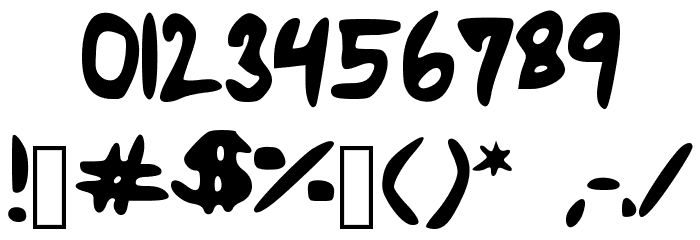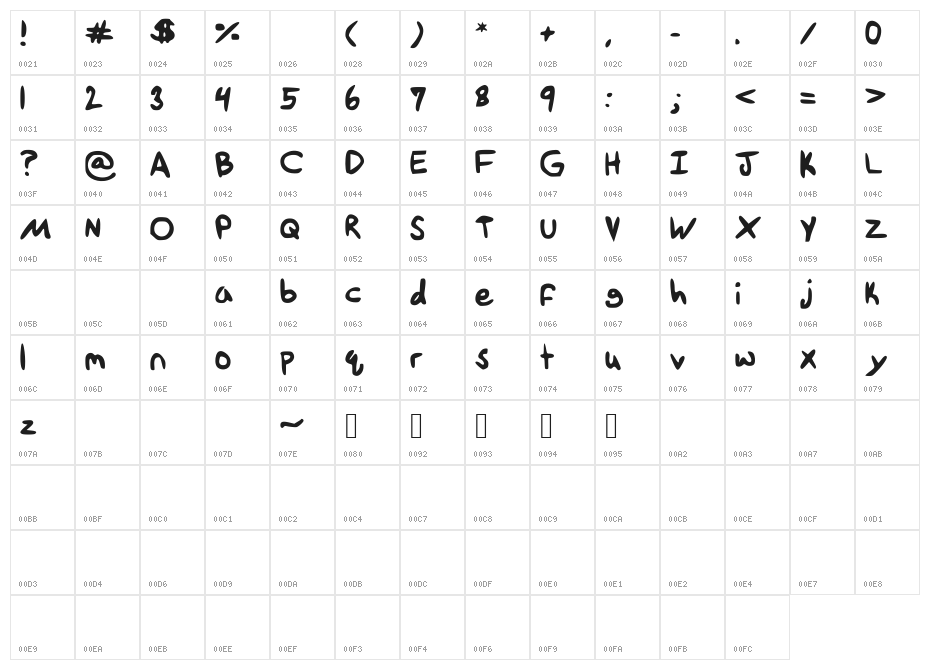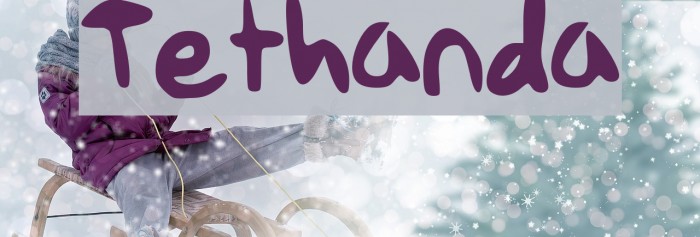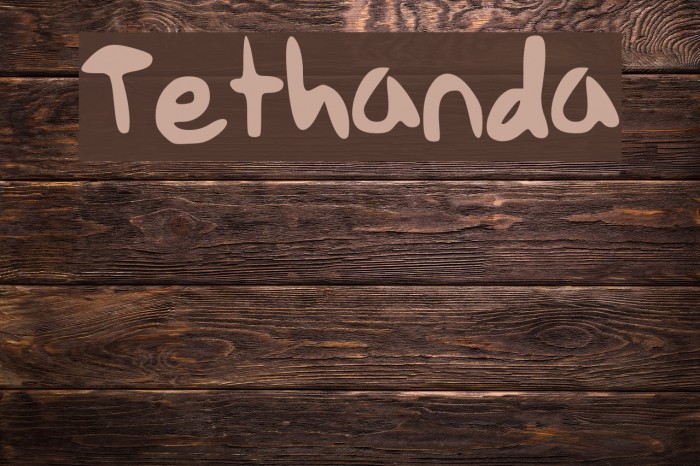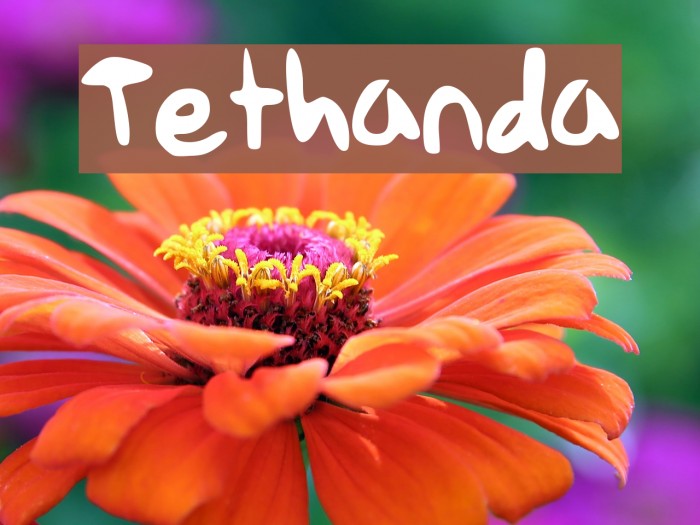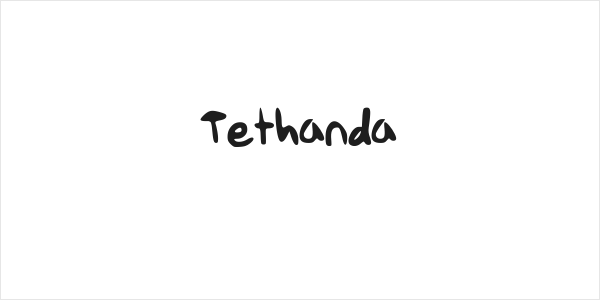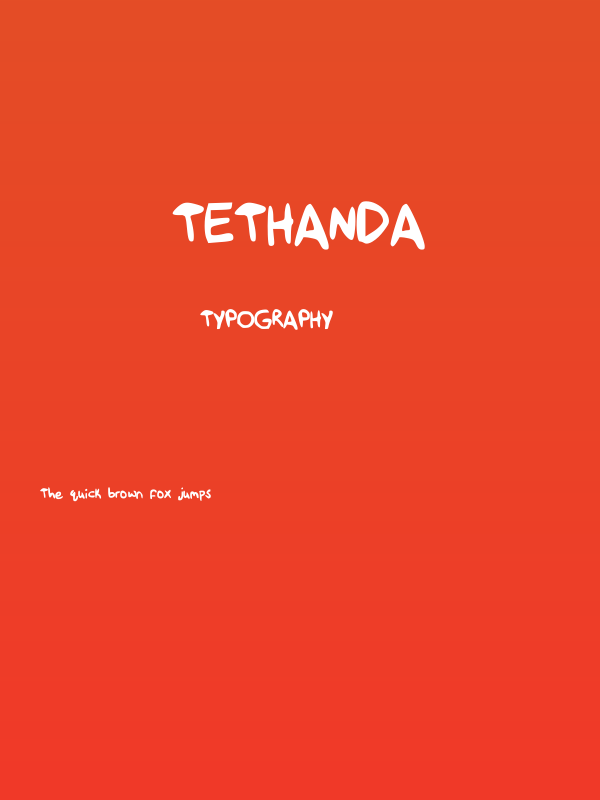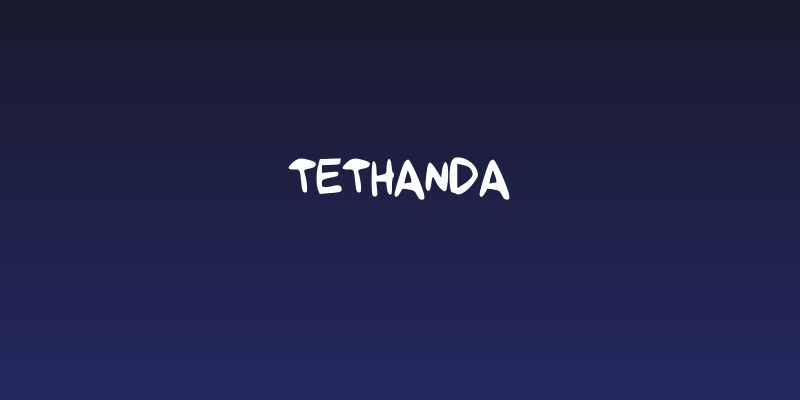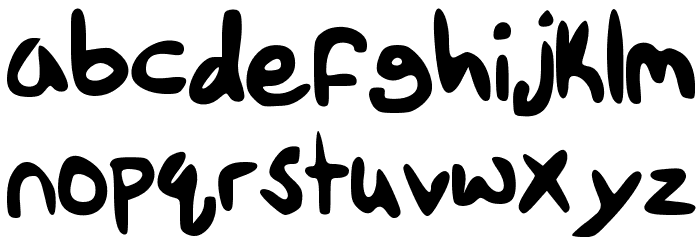
Tethanda Font
Tethanda Description
This playful and bold font features a handwritten style with a casual and friendly appearance. The characters are rounded and slightly irregular, giving it a whimsical and approachable feel. The uppercase and lowercase letters maintain a consistent style, with a noticeable thickness that adds to its boldness. The numbers and special characters are designed to match the overall playful aesthetic, making it suitable for creative and informal projects. The font's unique style makes it stand out, while its legibility ensures it remains functional for various uses.
| Proposed Projects | Ideal for children's books, playful branding, greeting cards, and informal posters. |